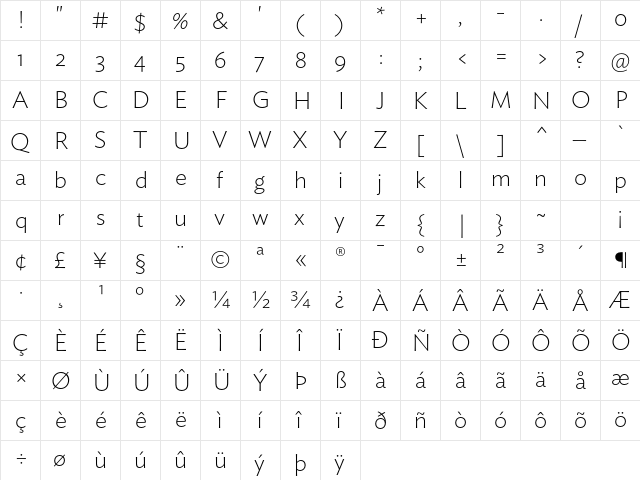
Ideal Sans Extra Light
| Foundry | Hoefler & Frere-Jones |
| Designer | Hoefler & Frere-Jones |
Design Context for Ideal Sans Typeface
Ideal Sans is a composed and adaptable typeface that performs quietly and consistently across a wide range of design contexts. Its slender proportions lend an understated elegance to any composition.